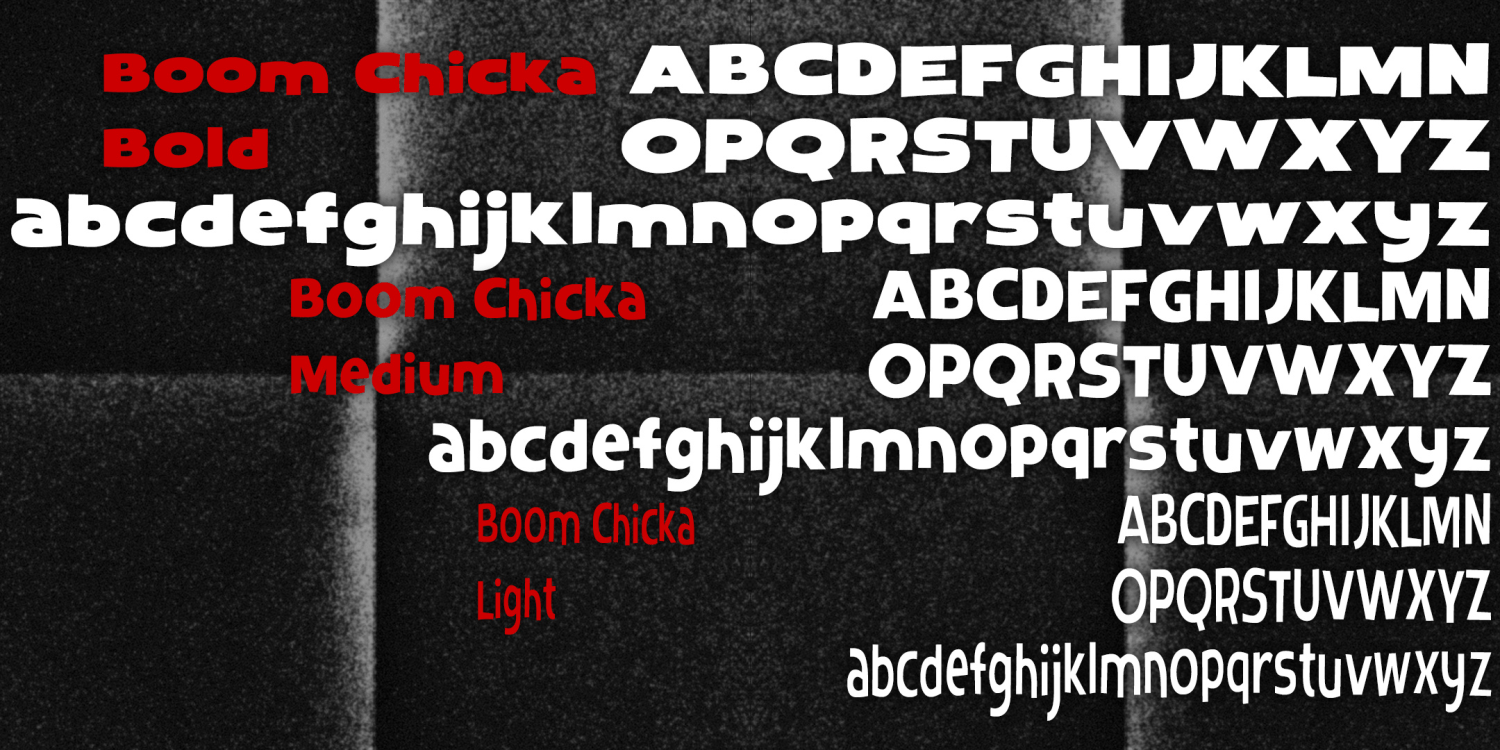
HomeFont BrosRetro (1936-1965)Boom Chicka Retro (1936-1965) Boom Chicka FacebookXPinterestWhatsApp 1 of 1 About Boom Chicka is a set of three fonts with a friendly, bouncy informality, inspired by a 1950s movie poster. Comes in 3 weights, Light, Medium and Bold.  DOWNLOAD ON FONT BROSThis font is sold and delivered by Font Bros. Font Canyon may earn a commission if you buy through this link. People also explored Predy K26 Jester Joust Font Mephisto Font Beauty Rainbow Font Rushtice Font Aliaka Rimon Font Virmana Font Rossa Font Energetica Font 351 0 TagsBoom Chicka Font Previous articleAndantinoNext articleMetronome Regular LEAVE A REPLY Cancel reply Comment: Please enter your comment! Name:* Please enter your name here Email:* You have entered an incorrect email address! Please enter your email address here Website: Save my name, email, and website in this browser for the next time I comment. Personal Use Free Eigha Personal Use Free Read more about this font Alphakind Personal Use Free Read more about this font Black Jalal Personal Use Free Read more about this font Blessed Font Personal Use Free Read more about this font BLOG Fonts That Capture the Spirit of New York City New York City is more than just a place—it’s an experience, a rhythm, a visual language... To increase your work productivity, choose the most readable fonts. Transform Your Website: Elevate Your Typography with 7 Best Web Font Generators Using Fonts in Digital Marketing: Tips to Strengthen Your Brand Identity